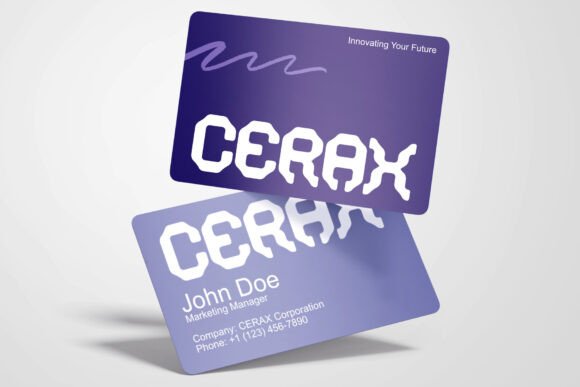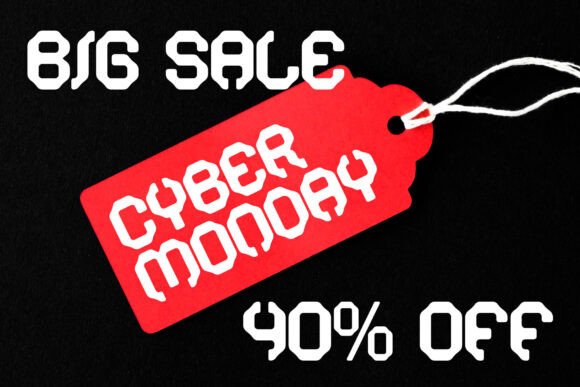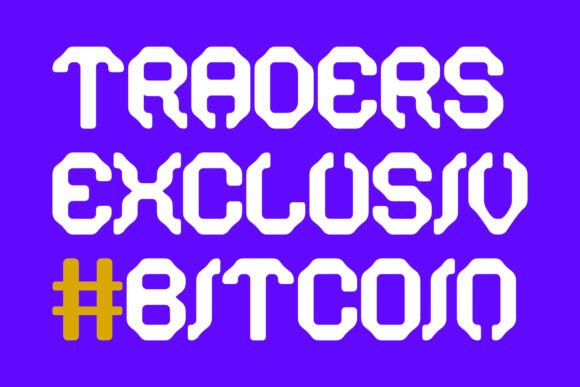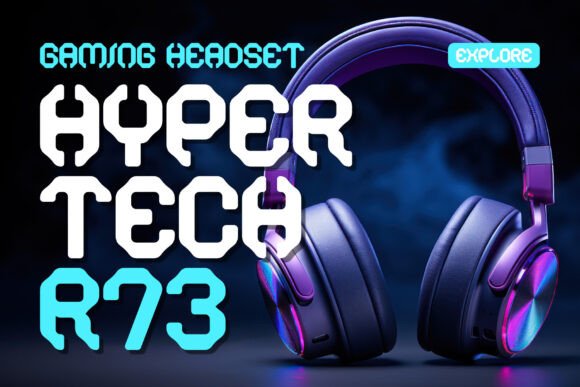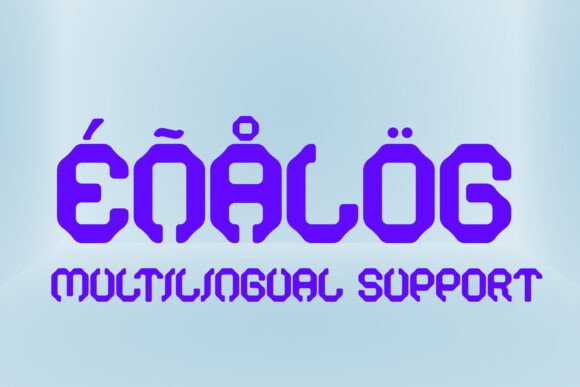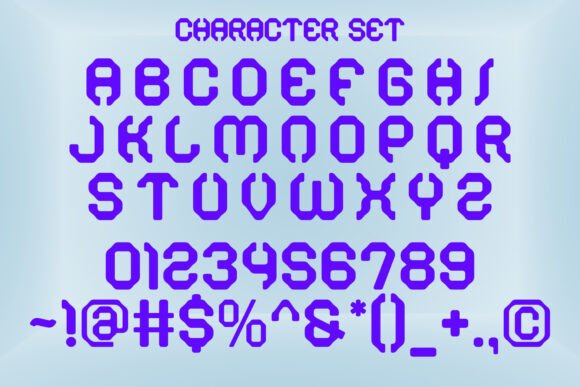
Introducing Broks Font: Elevate Your Brand Identity with Precision and Style
In the world of design, typography plays a crucial role in shaping brand identity and communicating messages effectively. A well-crafted font can elevate a brand’s visual presence, making it more engaging and memorable. Meet Broks Font, a state-of-the-art typeface designed to revolutionize the way you present your brand. With its mathematically optimized design, Broks is poised to become the go-to choice for designers and crafters seeking to make a lasting impression.
The Art of Precision: What Sets Broks Apart
Broks Font is the result of meticulous attention to detail and a passion for innovation. Every aspect of its design has been carefully crafted to ensure that it not only meets but exceeds the expectations of modern designers. The font’s creator has employed advanced mathematical techniques to optimize its features, resulting in a typeface that is both aesthetically pleasing and highly legible.
One of the standout features of Broks is its exceptional precision. Each letterform has been meticulously refined to ensure that it works harmoniously with others, creating a seamless reading experience. This attention to detail makes Broks an ideal choice for projects where clarity and precision are paramount, such as in corporate branding, logos, titles, and headlines.
Versatility Unleashed: The Many Uses of Broks Font
Broks Font is not just a typeface; it’s a versatile design tool that can be used across a wide range of projects. Whether you’re working on branding, logos, titles, headlines, posters, digital advertisements, or more, Broks has got you covered. Its adaptability makes it an excellent choice for designers who need a reliable font that can perform well in various contexts.
For corporate use, Broks offers a professional and sophisticated look that can help elevate a company’s brand identity. Its clean lines, precise letterforms, and elegant appearance make it perfect for creating a strong visual presence in business communications, marketing materials, and website design.
Designing with Broks: Tips and Tricks
To get the most out of Broks Font, designers can experiment with various weights, styles, and arrangements to create visually striking compositions. Here are a few tips to help you get started:
• Mix and match weights: Broks comes in multiple weights, allowing you to create visual hierarchy and add depth to your designs. Use a heavier weight for headings and a lighter weight for body text to create a clear distinction.
• Play with spacing: Experiment with different letter spacings to create a unique look that suits your project’s requirements. Broks’ precise design ensures that it will remain legible even at smaller sizes.
• Combine with images: Broks pairs well with a wide range of images and graphics. Use it to add text overlays to photographs, illustrations, or graphics to create visually appealing compositions.
Crafting with Broks: A World of Possibilities
Broks Font is not just limited to digital design; it’s also perfect for crafters who enjoy working with physical materials. Whether you’re creating hand-lettered signs, making custom stickers, or designing unique invitations, Broks provides a versatile and stylish solution.
For crafters, Broks offers a chance to add a professional touch to their work. Its precise design and elegant appearance make it ideal for projects that require a high level of detail and sophistication. With Broks, crafters can create beautiful, handmade pieces that are sure to impress.
Font Name Broks Font
Author Sealoung
Broks Font is a game-changing typeface that is poised to revolutionize the world of design. With its mathematically optimized design, exceptional precision, and versatility, it’s an excellent choice for designers and crafters seeking to elevate their brand identity and create visually stunning projects. Whether you’re working on corporate branding, logos, titles, headlines, posters, digital advertisements, or more, Broks has the potential to transform your designs and help you achieve your creative goals.